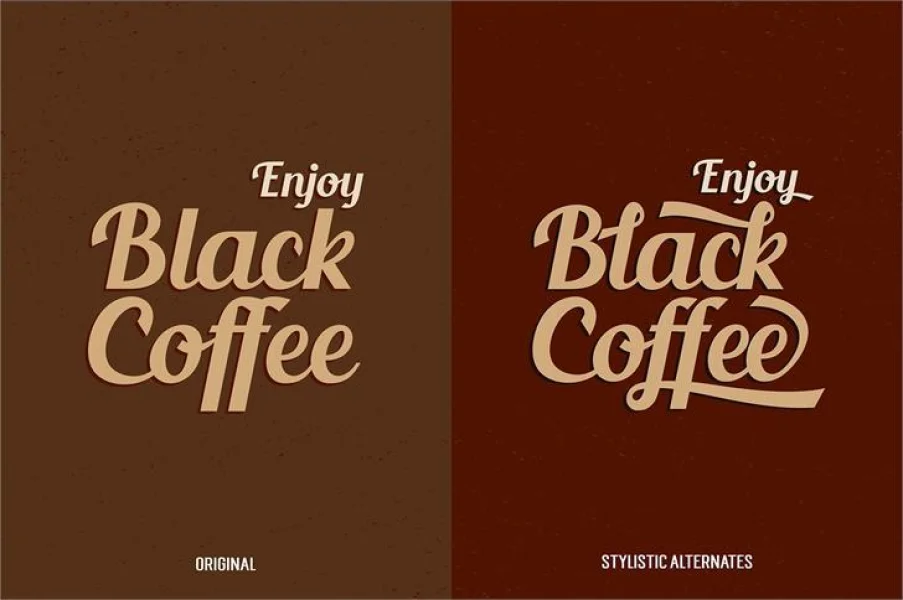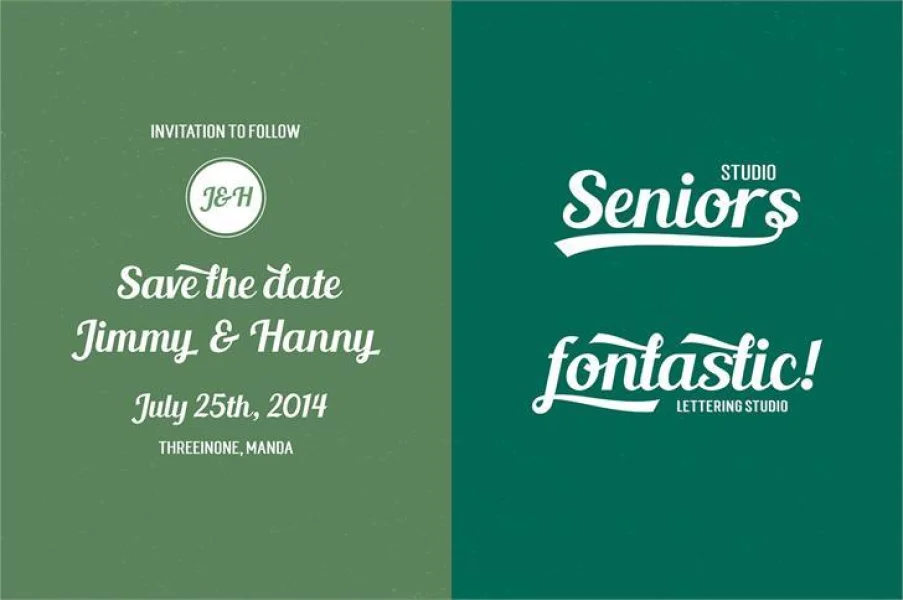
Blenda Script is a free experimental font inspired by lobster font, a bold vintage script. can be used for various purposes. Such as news, posters, logos, badges etc. https://www.behance.net/gallery/13832171/Blenda-Script-Free-Font